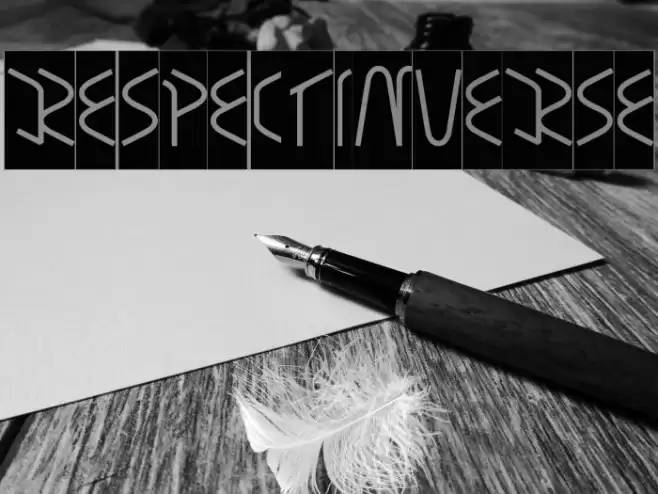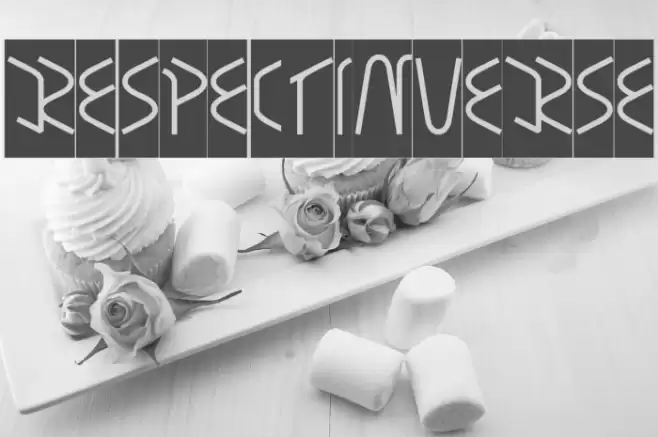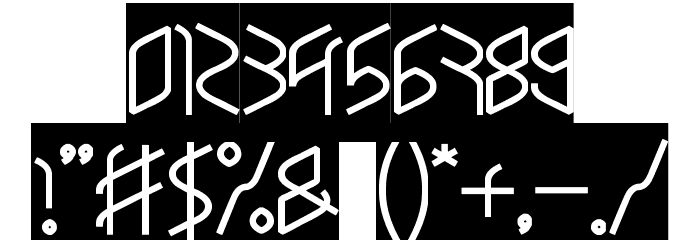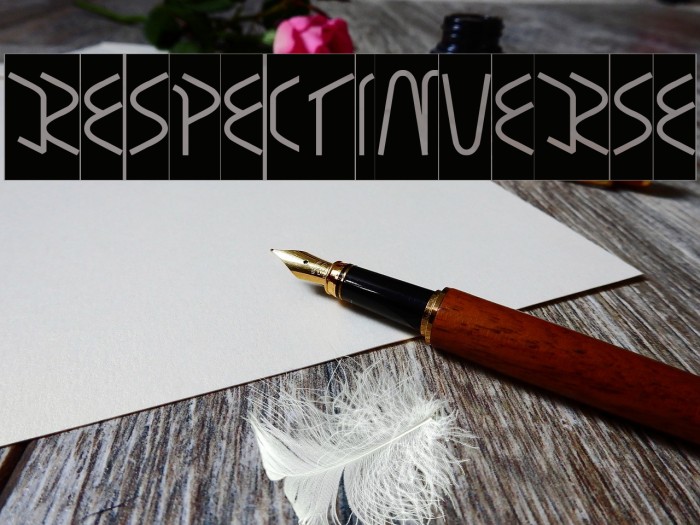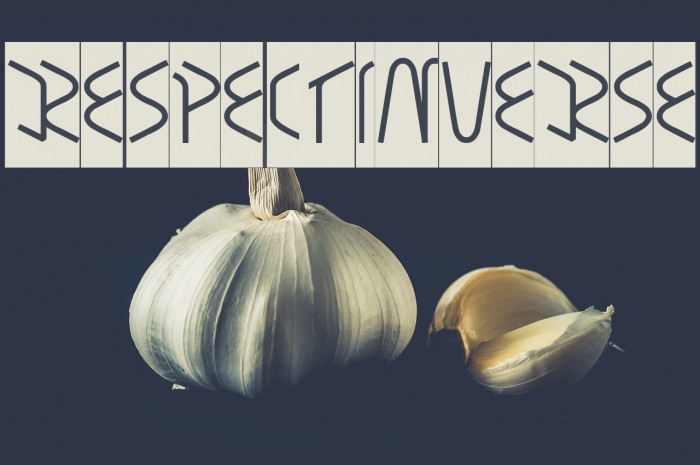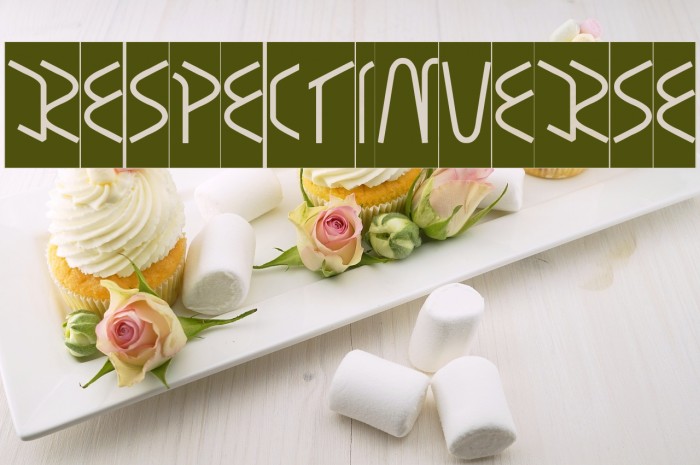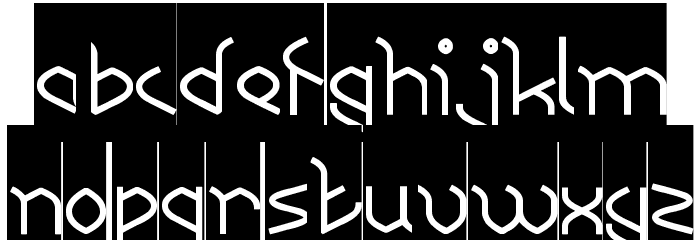
RESPECTINVERSE Font
RESPECTINVERSE Description
This font features a unique and modern design with a futuristic flair. The characters are composed of sleek, angular lines that create a sense of movement and dynamism. The uppercase letters are tall and narrow, while the lowercase letters maintain a consistent style with slightly more curvature. The numbers follow the same angular design, ensuring uniformity across all characters. Special characters are distinct yet harmonious with the overall aesthetic. The font's geometric structure and sharp edges make it stand out, offering a contemporary and innovative look.
A modern, angular font with a futuristic and dynamic design from Uncategorized fonts.
- Proposed Projects: Ideal for technology branding, sci-fi themed projects, modern art posters, and innovative product packaging.